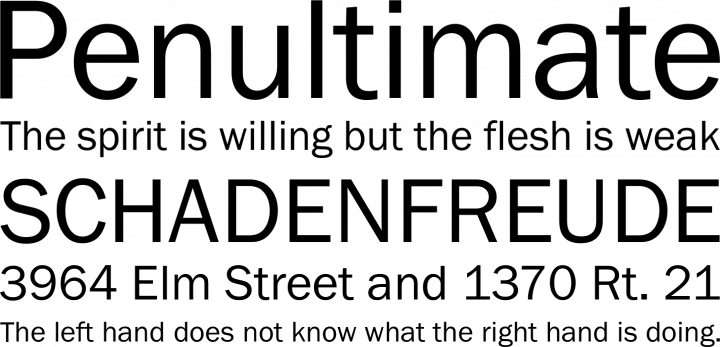
This page is a list of fonts used on various products related to lady gaga throughout her career. Download free franklin gothic font for personal use only.
Franklin gothic font generator. The font collection section is the place where you can browse, filter, custom preview and. The most used fonts for the smaller text are franklin gothic and helvetica. Franklin gothic condensed regular is free for personal use only.
Franklin gothic regular franklin gothic condensed franklin gothic italic franklin gothic italic. You can use the franklin gothic demi to create interesting designs, covers, shop and store name and logos. It has popularity in advertisement text and newspaper.
Franklin gothic font in use. Preview your fonts your headline is in franklin gothic bold this is a sub heading in franklin gothic bold. Click to find the best 1 free fonts in the news gothic style.
Adobe fonts itc franklin family has 12 fonts in their vault. Please, talk with the author for commercial use or for any support. The text generator section features simple tools that let you create graphics with fonts of different styles as well as various text effects;
The font family is franklingothiccond.the subfamily is regular. Download the champion htf heavyweight font for free. Gothic, barroque and romanic fonts.
Change your settings, and choose what section you want the font to apply to. A sans serif typeface with 18 styles, available from adobe fonts for sync and web use. Download the champion htf heavyweight font for free.
This page is a list of fonts used on various products related to lady gaga throughout her career. The font is also termed gothic #1, gothic #16, and square gothic heavy. This paragraph is in franklin gothic bold.keep reading for how to use the buttons to the left.
Franklin gothic font free download. News gothic bold is a commercial font. Gothic, barroque and romanic fonts.
Font generator font generator, copy and paste fonts. Anger styles by omaikraf studio. The font collection section is the place where you can browse, filter, custom preview and.